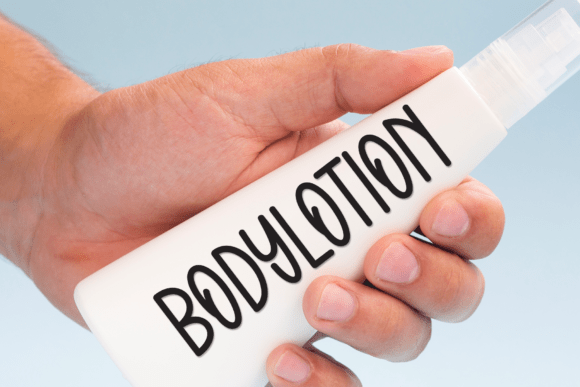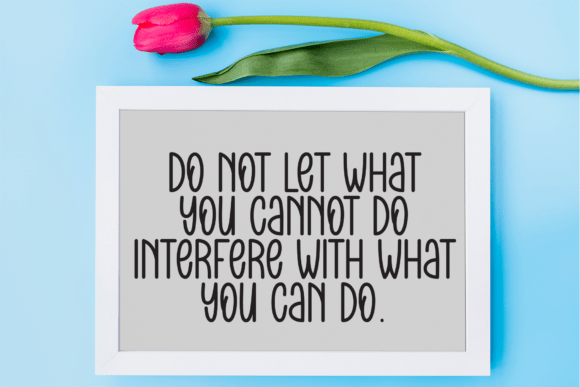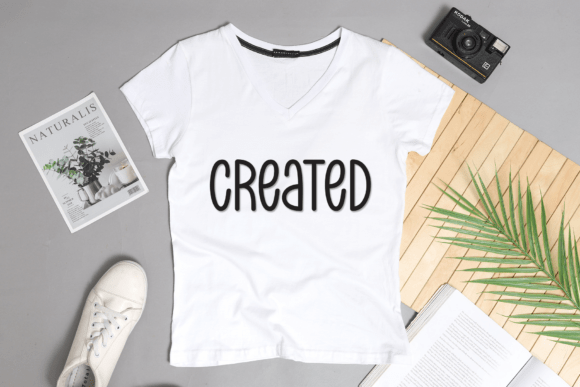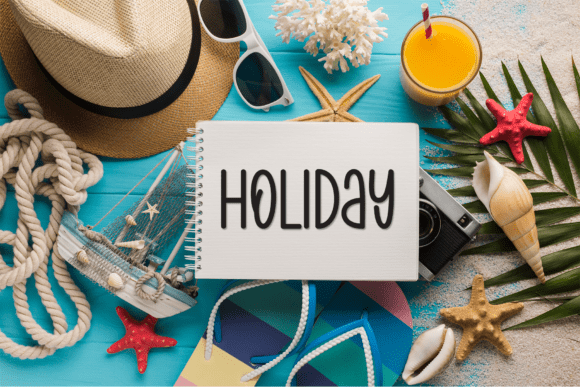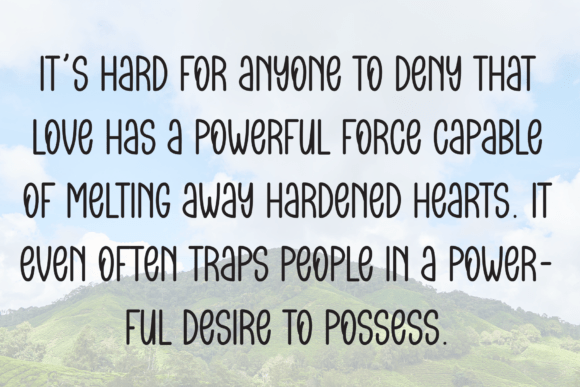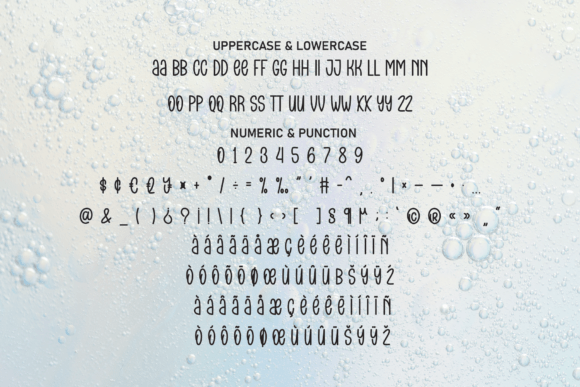
Introduction to Frosty Bubble Font
Immerse yourself in the charming allure of our sweet and amiable handwritten display font.
Imbued with irresistible warmth, this type emanates a friendly demeanor that effortlessly graces your personalized notes and invitations Perfectly suited for wedding invitations or heartfelt greeting cards, it adds an enthralling fun touch anywhere itโs applied.